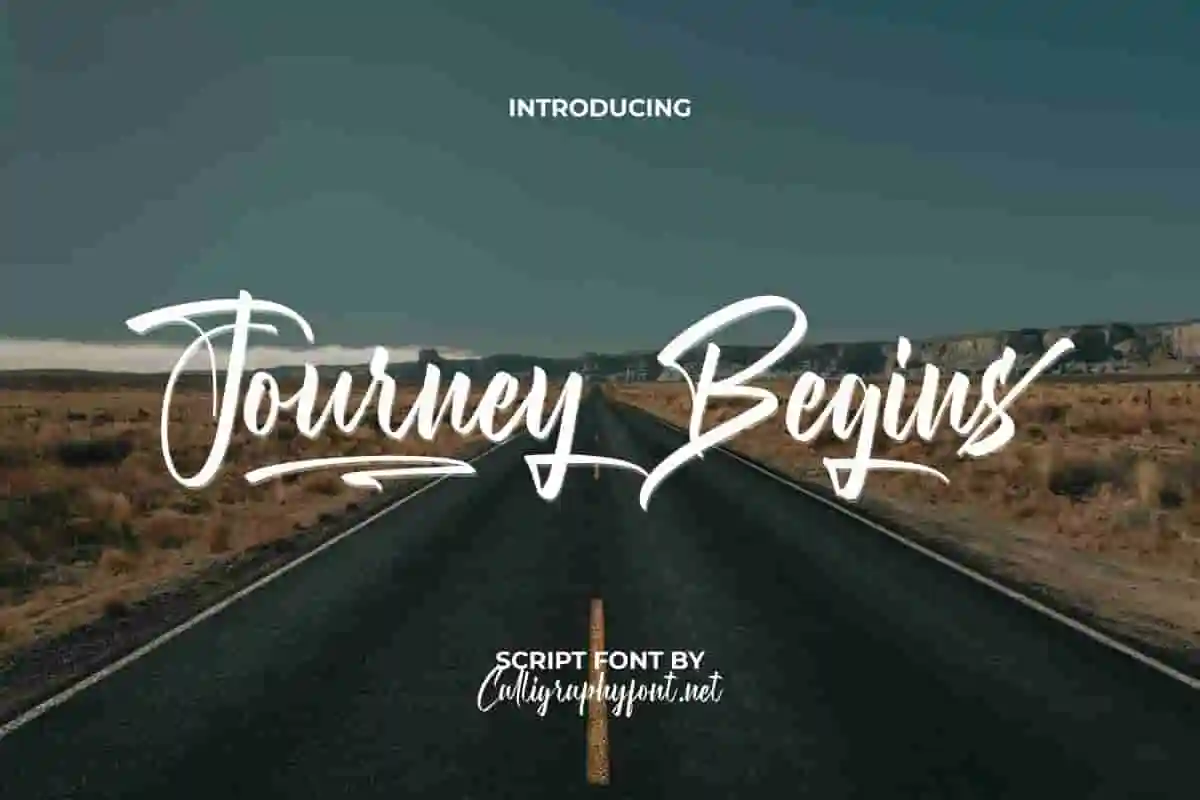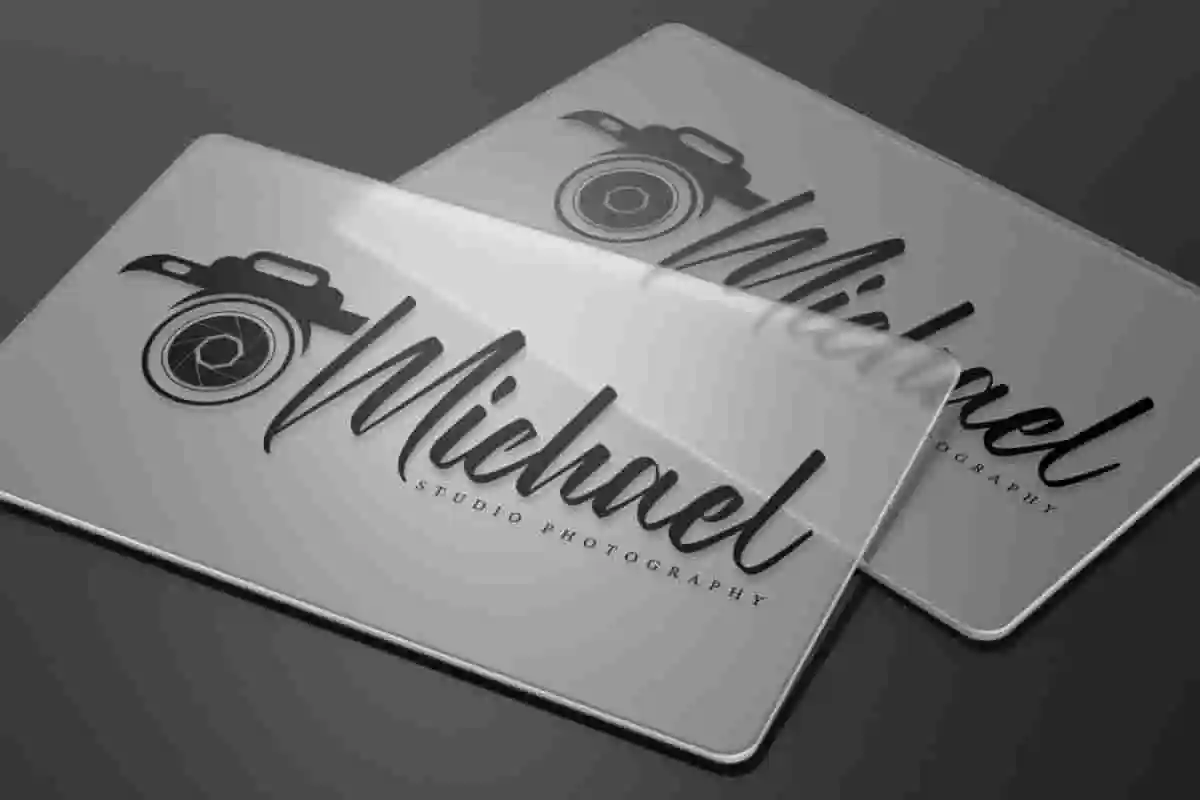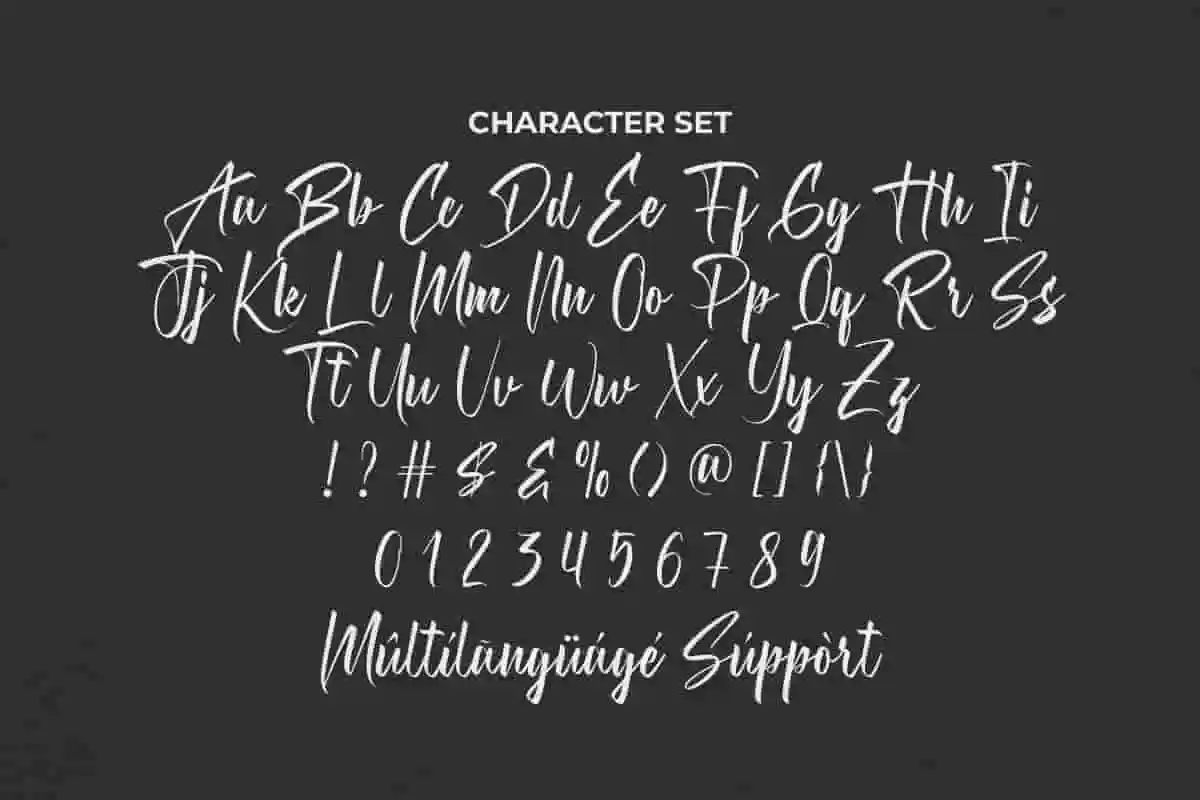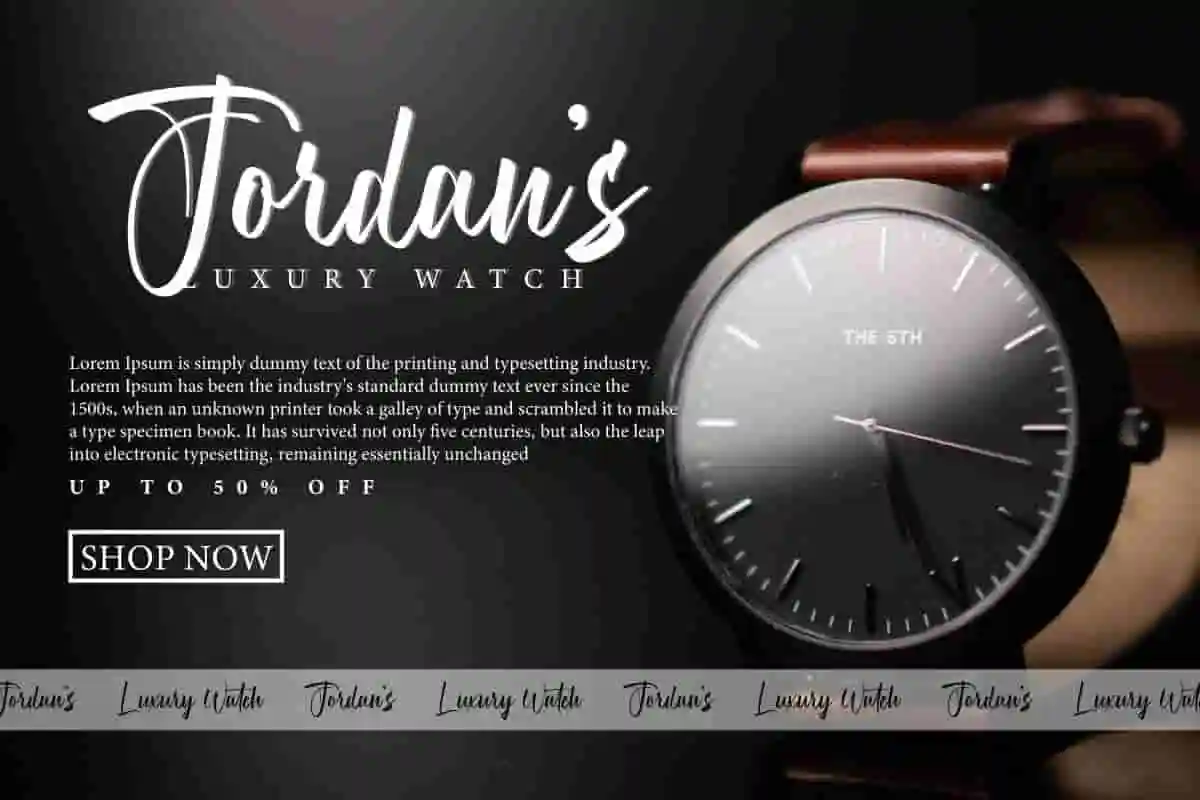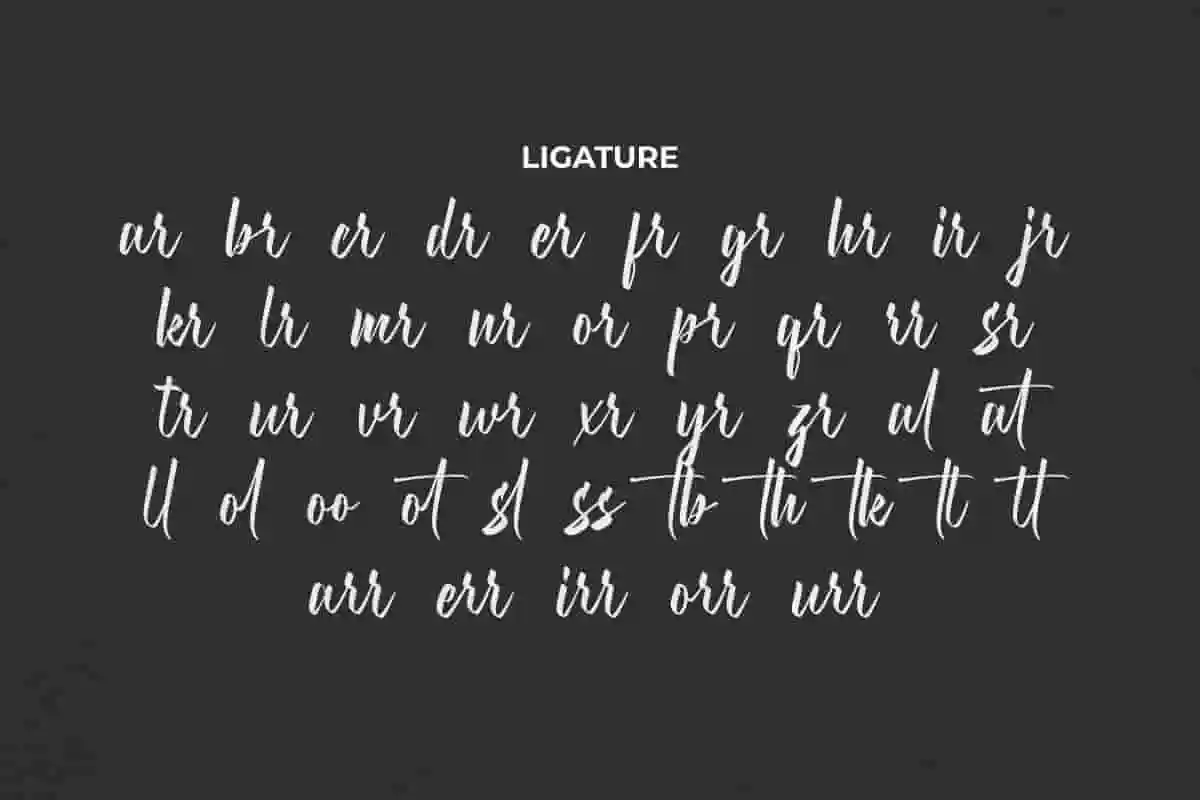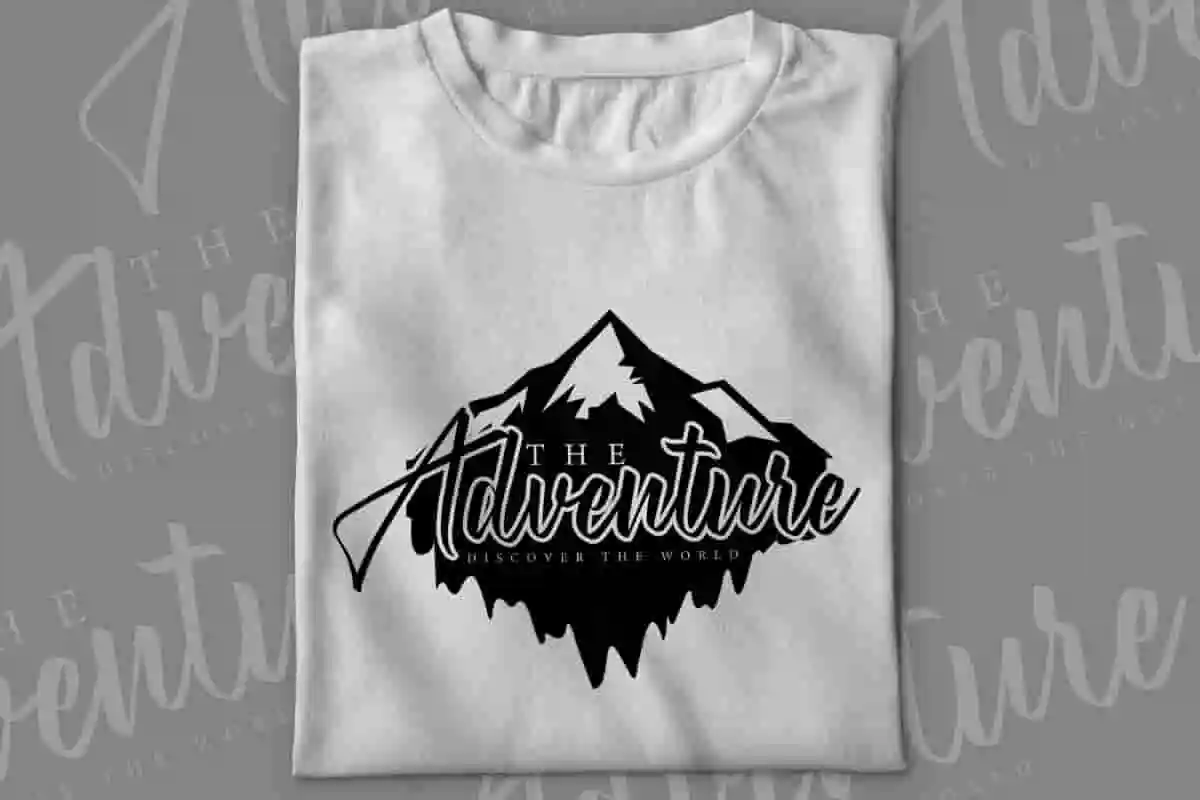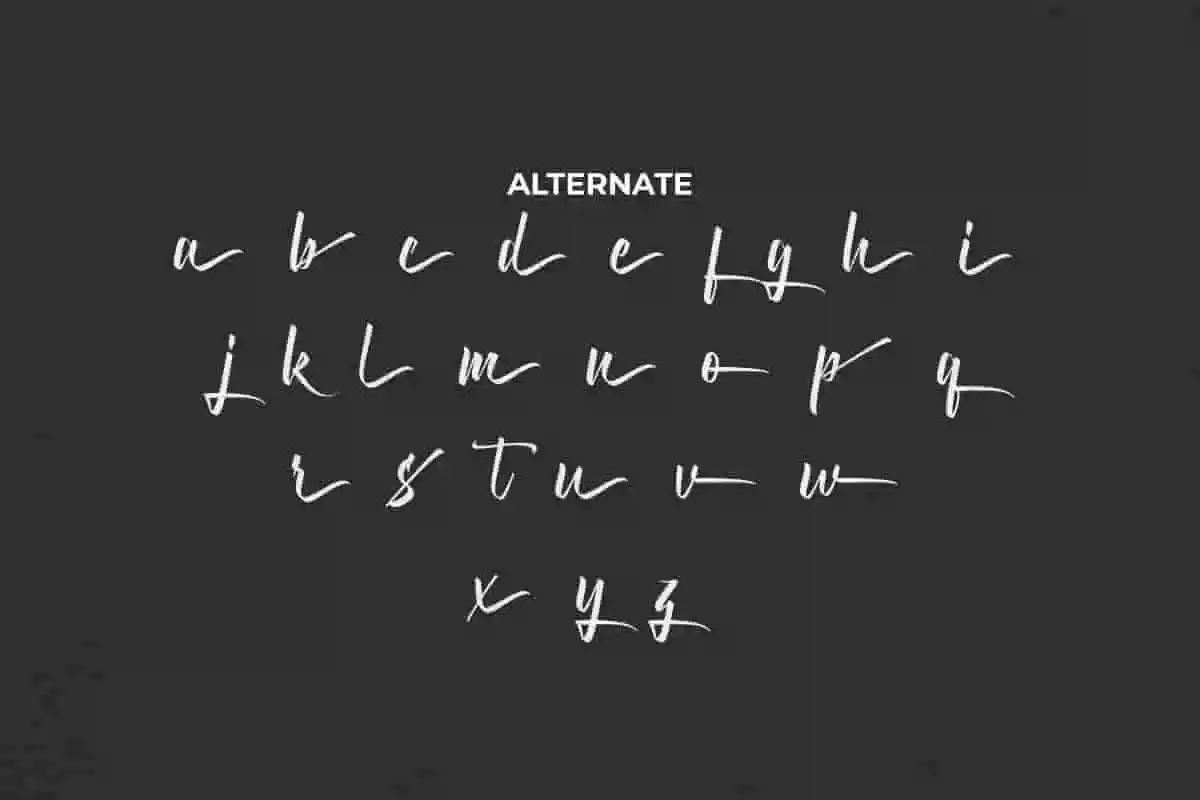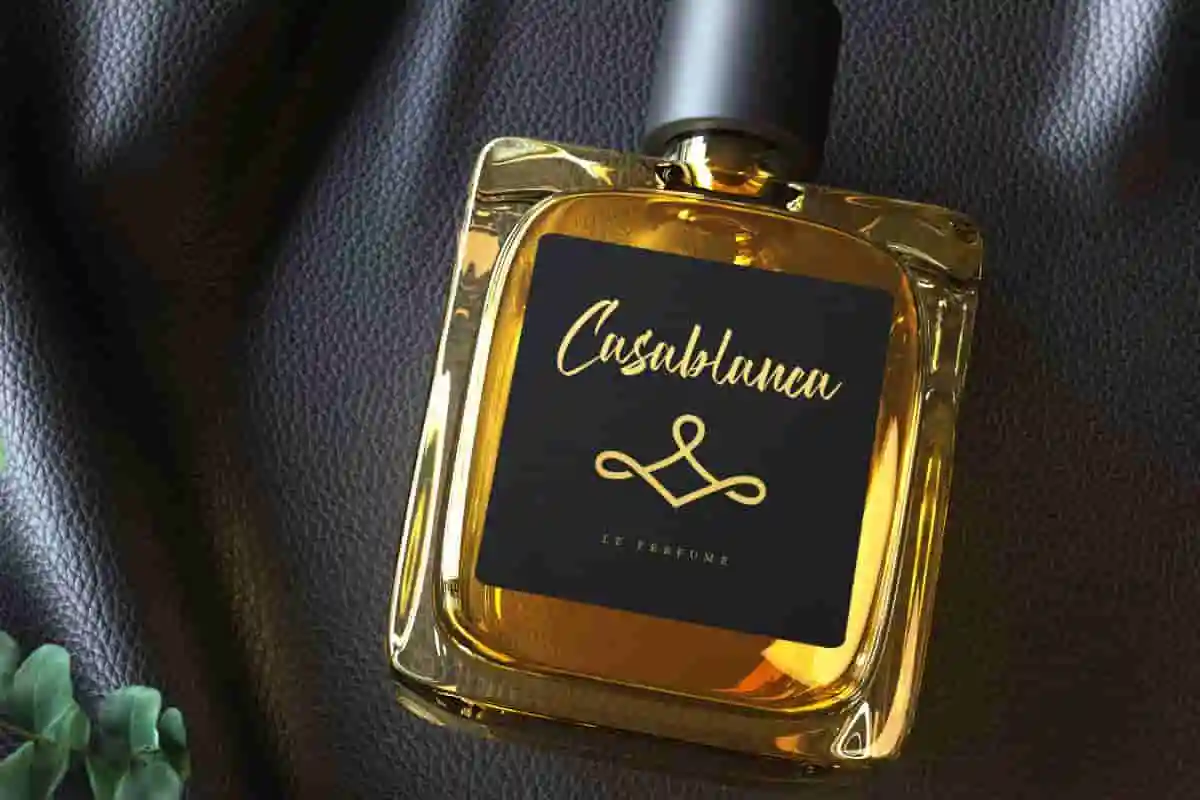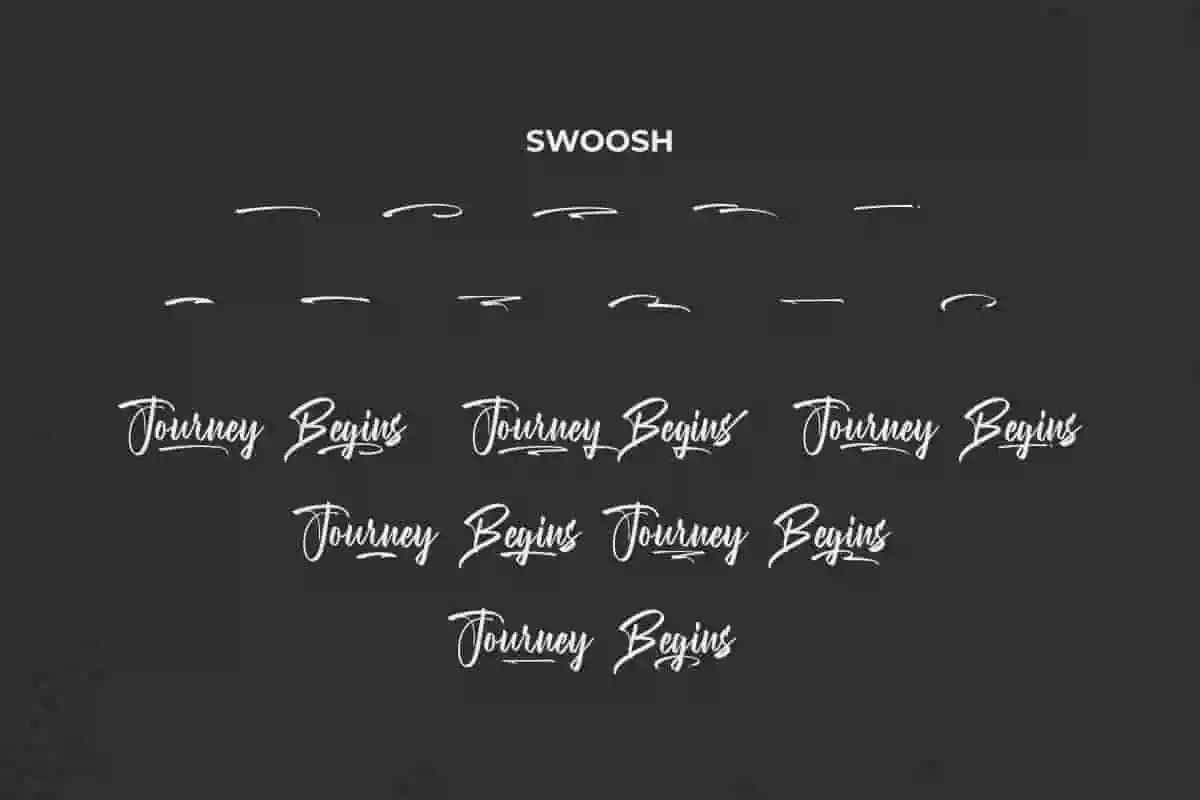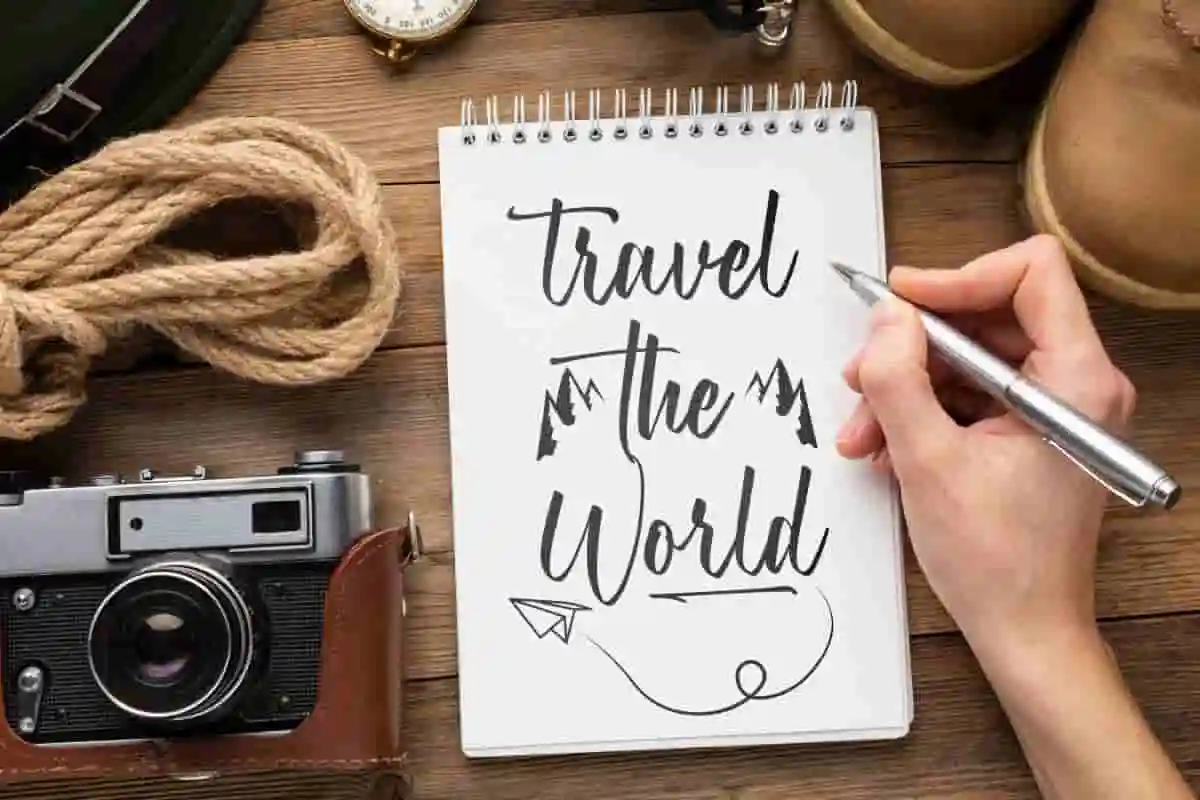
Journey Begins Calligraphy Font
Journey Begins Font is a beautiful and authentic modern calligraphy font designed by CalligraphyFonts.net, perfect for logo, magazine, photography, product packaging, social media, titles, or just used to express words above the background.
Journey Begins Font is an elegant and modern script font that can elevate the look of any creative project! This relaxed handwritten font, inspired by journey or adventuring related. It can be used for fashion design, photography, product design, thank you card, travel event, wedding project, and other projects that need a personal touch.
Introducing Journey Begins Calligraphy Font, a graceful and flowing script font that captures the beauty of new beginnings. With each elegant curve and handwritten stroke, this font is made to celebrate love, dreams, and life’s most meaningful moments. Designed with a modern calligraphy style, Journey Begins brings a romantic and emotional feel to your projects. Perfect for wedding invitations, branding, quotes, greeting cards, blogs, or product packaging, this font adds a personal, heartfelt touch to every word.
Introducing Journey Begins Calligraphy Font, a stunning calligraphy typeface created to elevate your designs with timeless elegance. This font captures the spirit of handwritten calligraphy in every curve and stroke. Meet Journey Begins Calligraphy Font, a graceful and flowing script designed to bring emotion and beauty to your creative work. This font captures the feeling of handwritten elegance, making it perfect for wedding invitations, love letters, and branding with a soft personal touch.
Inspired by the art of classic penmanship, this calligraphy typeface combines timeless style with modern charm. Whether you’re designing logos, social media content, or personal stationery, Journey Begins Calligraphy Font delivers a refined and romantic look that feels truly heartfelt.
The smooth curves, delicate strokes, and natural flow of this font reflect authentic calligraphy style. Each character was carefully crafted to mimic the soft movement of ink on paper, giving your designs a warm and personal vibe — exactly what calligraphy should feel like.
- Lovely ligatures & stylistic alternates
- Uppercase & lowercase calligraphy letters
Journey Begins Font has been already tested Work on PC & Mac. This font is PUA encoded, which means you can access all of the glyphs, ligature and swoosh with ease! included Uppercase and lowercase letters, number, punctuation. It has a passionate and perfect for logos, stationery, t-shirts, and more! Add this to your next creations!